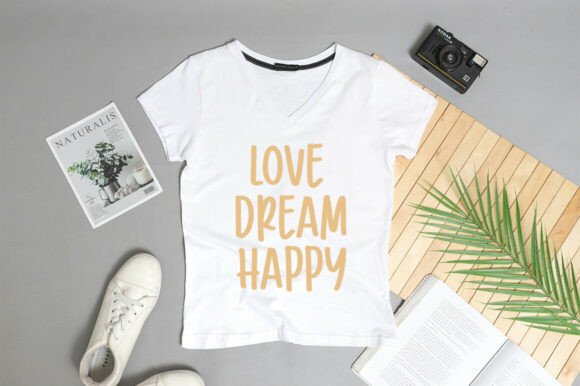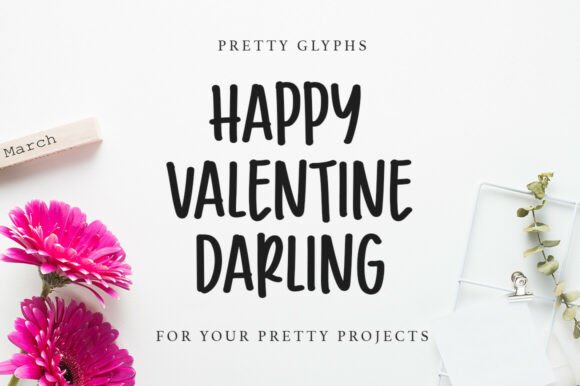
Introducing Friendly Brush Font: Unleash Boldness and Creativity in Your Designs
Are you tired of using the same old fonts that fail to capture the essence of your brand or artistic vision? Look no further than the Friendly Brush Font, an exquisitely handcrafted brush font designed to infuse your designs with boldness, expression, and undeniable style. Inspired by authentic brush lettering, this font is a game-changer for creatives seeking to add a robust personality and authentic vibe to their work.
The Art of Authentic Brush Lettering
Every character in the Friendly Brush Font has been meticulously crafted to tell a story through its natural strokes, dynamic movement, and rich textures. The font’s design draws inspiration from traditional brush lettering, where every line, curve, and flourish is a testament to the human touch. The result is a font that exudes a sense of energy, spontaneity, and creativity, making it perfect for designers and crafters looking to add a personal touch to their work.
Balancing Casual Freedom with Modern Aesthetics
One of the standout features of the Friendly Brush Font is its uncanny ability to balance casual freedom with modern aesthetics. The font’s organic, handcrafted feel is perfectly balanced with a sleek, contemporary look that ensures your designs look fresh and relevant. Whether you’re working on a branding project, social media content, or a personal craft, this font provides the perfect blend of playfulness and sophistication.
Command Attention with Creative Energy
The Friendly Brush Font is more than just a font – it’s a design statement. With its powerfully engaging and effervescent creative energy, this font demands attention and makes your message impossible to ignore. Whether you’re looking to create a bold brand identity or craft social content that resonates with your audience, this font is the perfect tool to help you stand out in a crowded design landscape.
The Friendly Brush Font is a dream font for creatives looking to inject their designs with a robust personality and authentic vibe. Whether you’re a designer, artist, or crafter, this font provides the perfect way to add a personal touch to your work. With its versatility and wide range of applications, you can use this font for:
- Branding and logo design
- Social media content and graphics
- Personal crafts and DIY projects
- Stationery and packaging design
Key Features of Friendly Brush Font
Here are just a few of the key features that make the Friendly Brush Font an essential tool for designers and crafters:
- Handcrafted brush font with natural strokes and textures
- Dynamic movement and energy
- Balances casual freedom with modern aesthetics
- Perfect for branding, social media content, and personal crafts
- Wide range of applications and uses
In conclusion, the Friendly Brush Font is a must-have for designers and crafters looking to add a bold, creative, and authentic touch to their work. With its expertly crafted design, natural strokes, and dynamic movement, this font is sure to command attention and make your message unforgettable. So why wait? Download the Friendly Brush Font today and unleash your creativity!